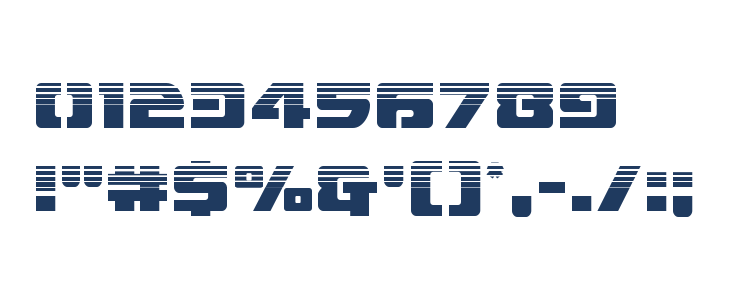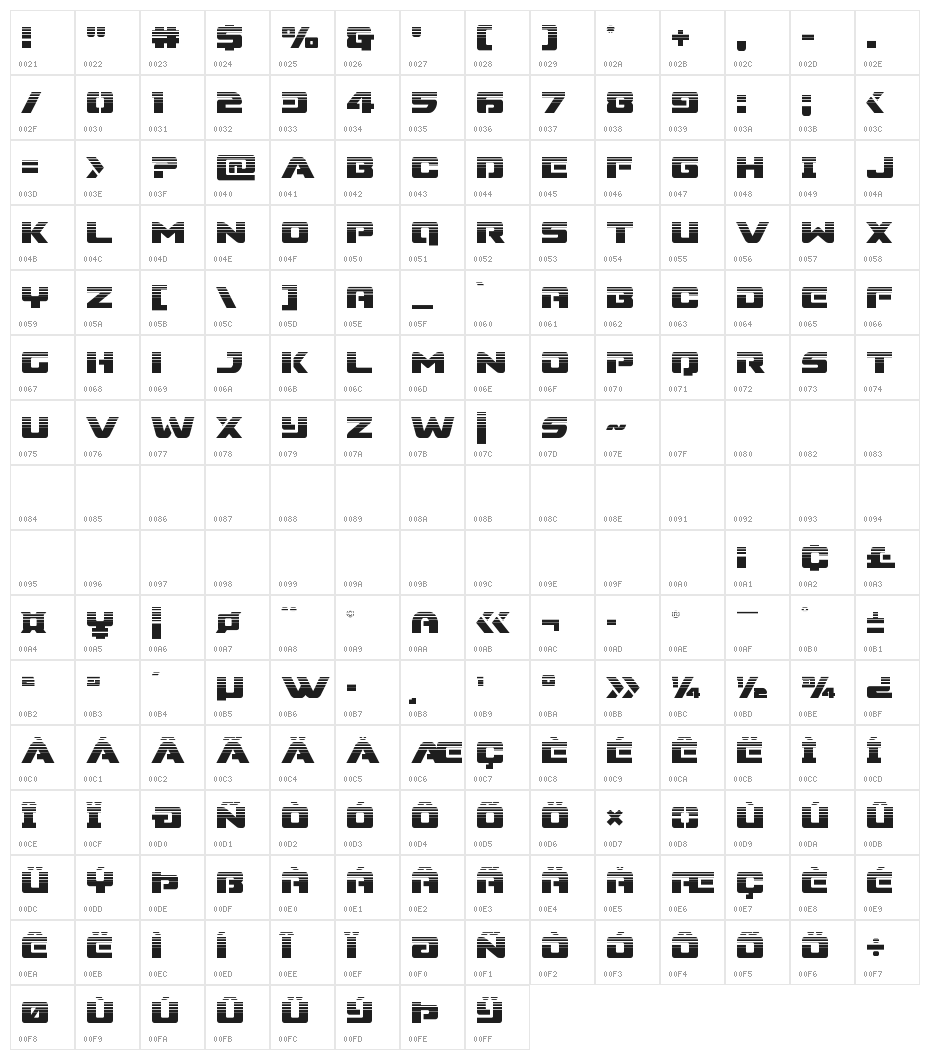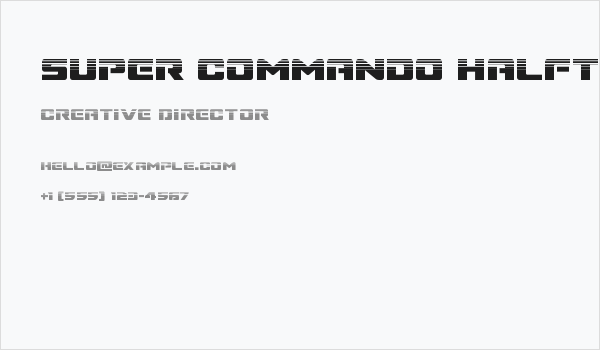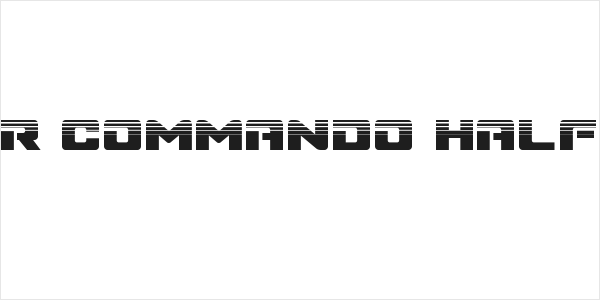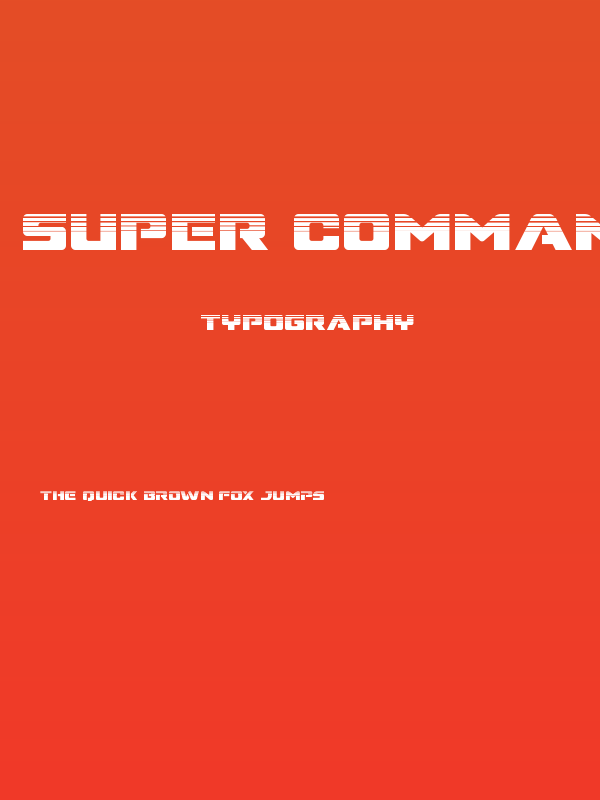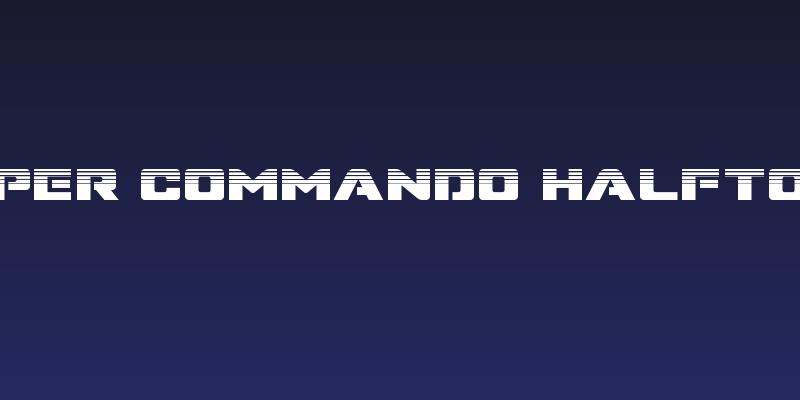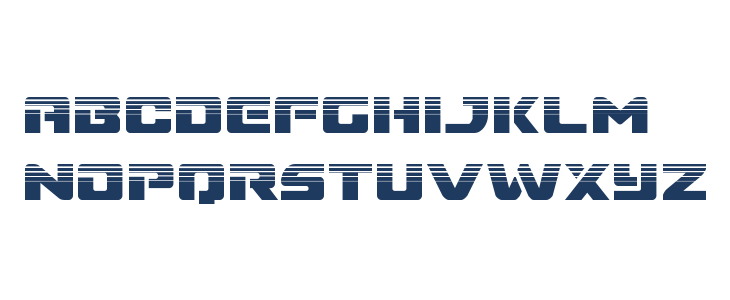
Super Commando Halftone Font
Super Commando Halftone Description
This font features a bold, futuristic design with a distinct halftone effect that gives it a unique, layered appearance. The characters are constructed with horizontal lines that create a sense of movement and depth, making it ideal for projects that require a modern and dynamic look. The uppercase letters are particularly striking, with sharp angles and a strong presence. The numbers and special characters maintain the same stylistic approach, ensuring consistency across all text elements. This font is perfect for creating eye-catching headlines, posters, and branding materials that need to stand out.
| Use Case | Headlines, Posters, Branding |
| Proposed Projects | Ideal for sci-fi themed posters, video game titles, futuristic branding, and dynamic headlines. |